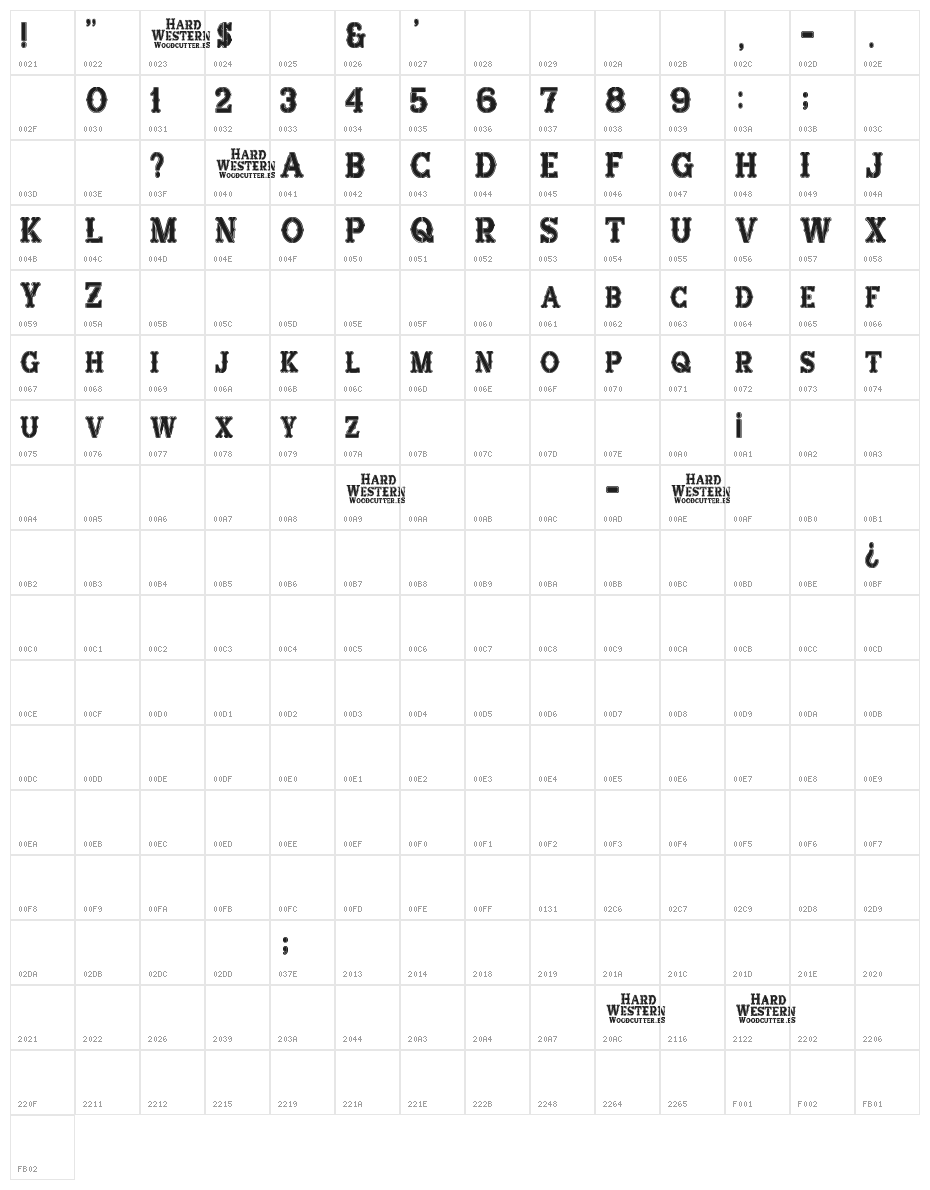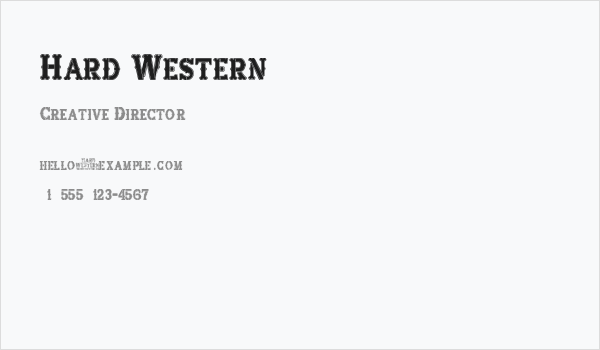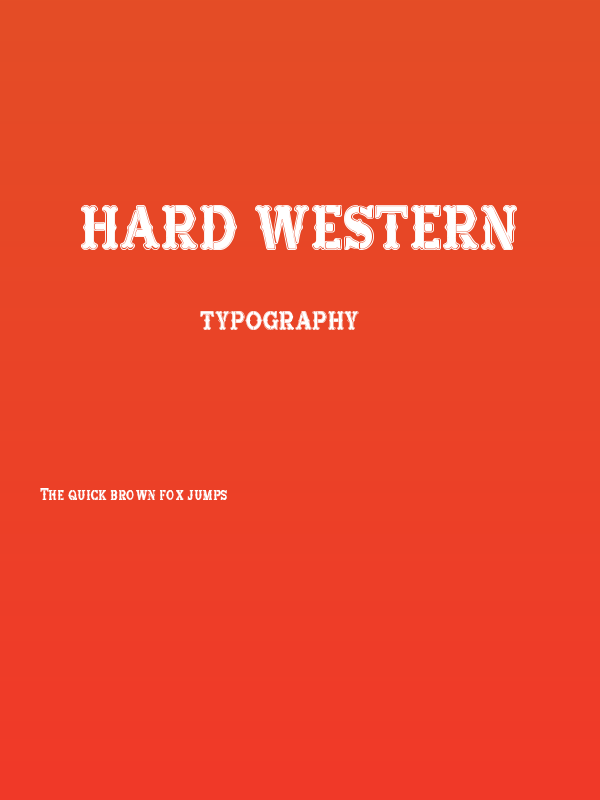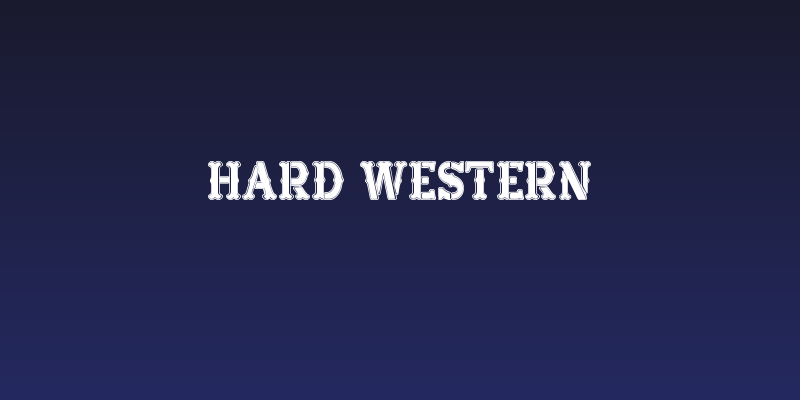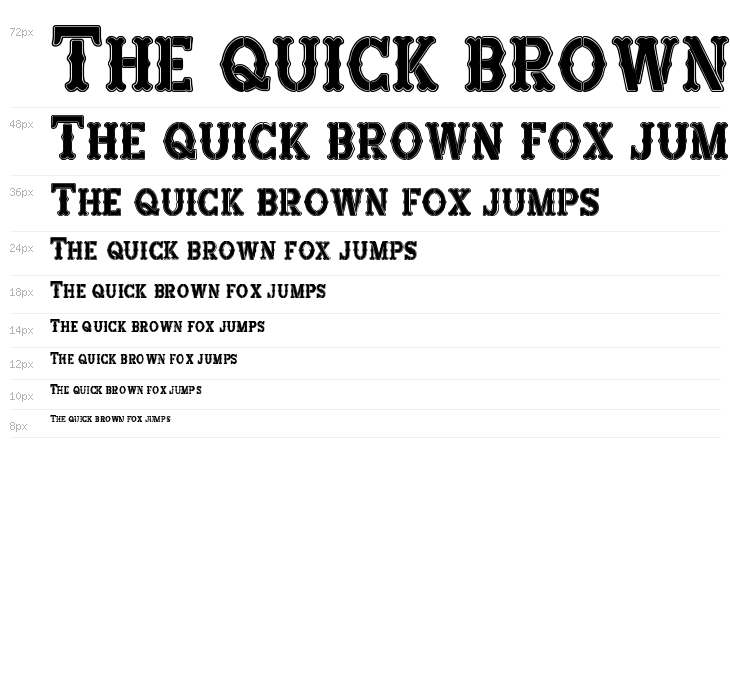
Hard Western Font
Hard Western Description
This font features a bold and rugged design, reminiscent of classic Western typography. The characters are heavily stylized with thick strokes and a shadow effect that gives them a three-dimensional appearance. The serifs are pronounced, adding to the font's strong and sturdy look. Each letter is distinct, with a consistent weight and width, making it highly legible while maintaining its decorative appeal. The numbers and special characters follow the same design principles, ensuring uniformity across all glyphs. This font is ideal for projects that require a vintage or Western theme, offering a bold statement with its unique style.
| Proposed Projects | Ideal for Western-themed posters, branding, signage, and event invitations. |